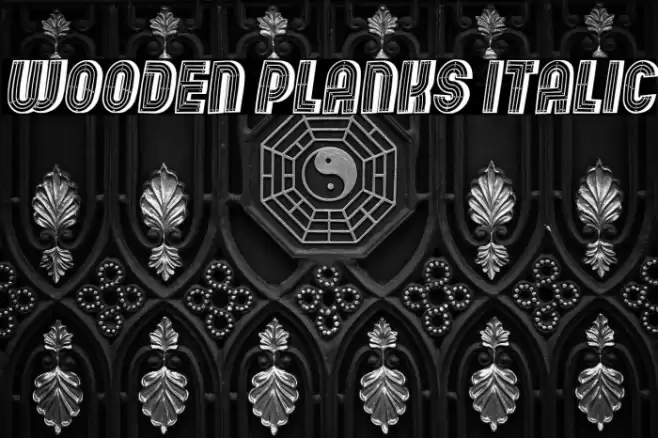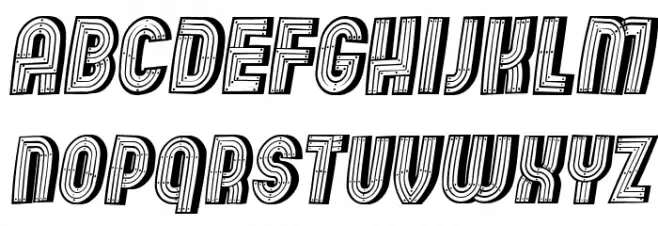
Wooden Planks Italic Font
Wooden Planks Italic Description
This font features a unique and bold design that mimics the texture and appearance of wooden planks. Each character is crafted with intricate detailing, including lines and shading that give a three-dimensional effect. The letters are italicized, adding a dynamic and forward-leaning aspect to the overall look. The font is highly decorative, making it stand out with its distinctive style. It combines elements of both modern and rustic aesthetics, making it versatile for various design needs. The characters are evenly spaced, ensuring readability while maintaining its artistic flair.
A bold, decorative font with a wooden plank texture and italicized style from Decorative fonts.
- Proposed Projects: Ideal for branding projects, signage, posters, and any design work that requires a rustic or adventurous theme.